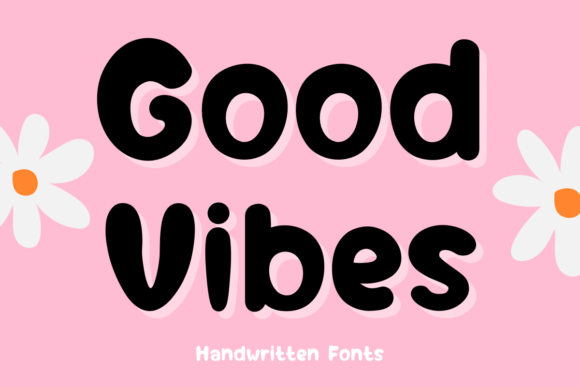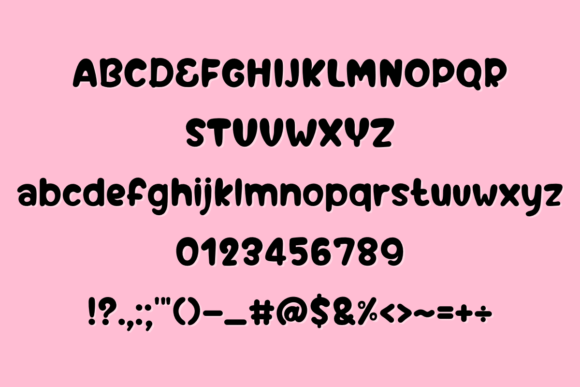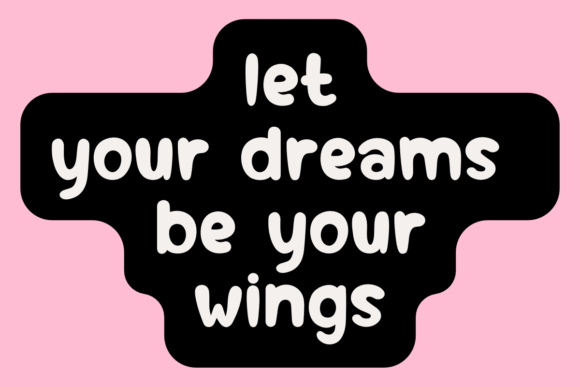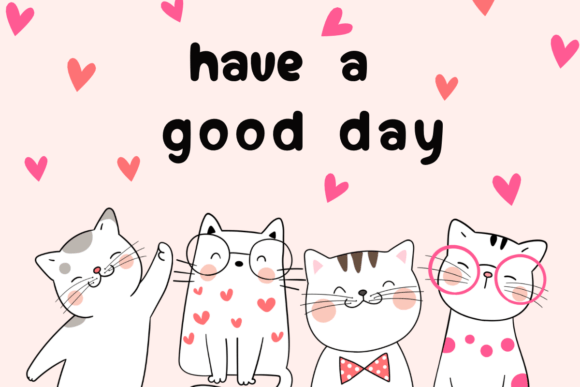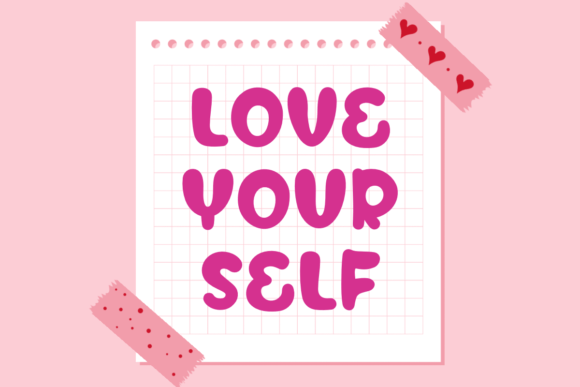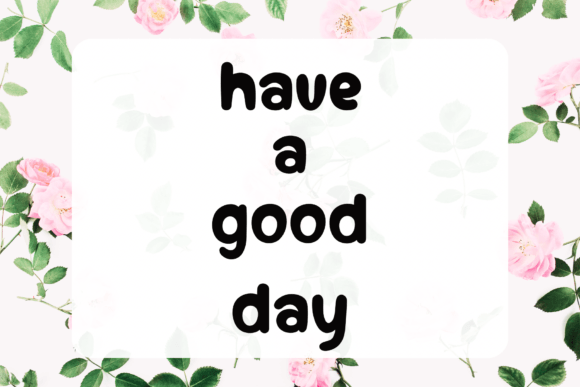
Introducing Good Vibes Font: The Ultimate Groovy Handwritten Display Font
Are you a designer or crafter looking for a font that can add a touch of fun and playfulness to your creative projects? Look no further than Good Vibes Font! This cute and groovy handwritten display font is perfect for designing a wide range of products, from T-shirts and tote bags to wedding invitations and stickers.
What Makes Good Vibes Font So Special?
Good Vibes Font is a unique and eye-catching font that is sure to make any creative idea stand out. Its groovy and playful style is reminiscent of the 1960s and 1970s, making it perfect for designers and crafters who want to add a retro touch to their projects. The font is highly versatile and can be used for a variety of design projects, including:
- T-shirts and apparel
- Tote bags and other promotional products
- Hats and headwear
- Stickers and labels
- Wedding invitations and party decor
- Cards and stationery
- Quotes and inspirational graphics
Key Features of Good Vibes Font
Good Vibes Font has several key features that make it a must-have for designers and crafters. Some of its key features include:
- Handwritten style: Good Vibes Font has a unique, handwritten style that gives it a personal and playful touch.
- Groovy vibe: The font’s groovy vibe is perfect for designers and crafters who want to add a retro touch to their projects.
- Highly legible: Despite its playful style, Good Vibes Font is highly legible and easy to read, making it perfect for use on a variety of products.
- Versatile: Good Vibes Font can be used for a wide range of design projects, from logos and branding materials to party decor and wedding invitations.
How to Use Good Vibes Font in Your Design Projects
Using Good Vibes Font in your design projects is easy! Here are a few tips to get you started:
- Pair it with other fonts: Good Vibes Font pairs well with other fonts, including sans-serif fonts and script fonts. Experiment with different font combinations to find the perfect look for your project.
- Use it for headlines: Good Vibes Font is perfect for use in headlines and titles. Its playful style and groovy vibe make it a great choice for adding visual interest to your designs.
- Add some color: Good Vibes Font looks great in a variety of colors, from bright and bold to pastel and soft. Experiment with different colors to find the perfect look for your project.
Why Designers and Crafters Love Good Vibes Font
Designers and crafters love Good Vibes Font for a variety of reasons. Here are a few:
- It’s fun and playful: Good Vibes Font is the perfect choice for designers and crafters who want to add a touch of fun and playfulness to their projects.
- It’s versatile: Good Vibes Font can be used for a wide range of design projects, making it a great addition to any designer’s or crafter’s toolkit.
In conclusion, Good Vibes Font is a must-have for designers and crafters who want to add a touch of fun and playfulness to their creative projects. Its groovy and playful style, highly legible design, and versatility make it perfect for use on a wide range of products. Whether you’re designing T-shirts, wedding invitations, or logos, Good Vibes Font is sure to make your projects stand out. So why wait? Download Good Vibes Font today and start creating your own groovy designs!